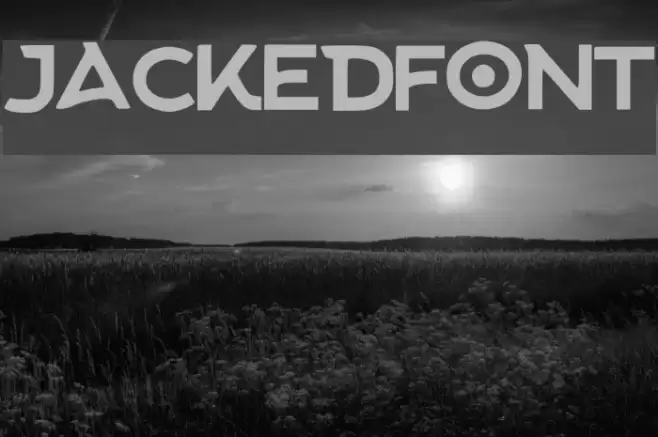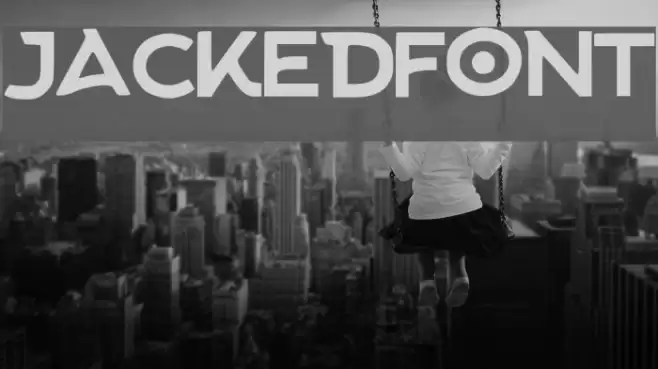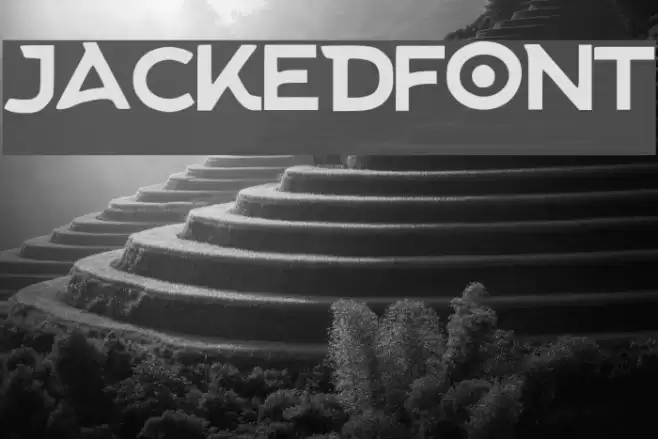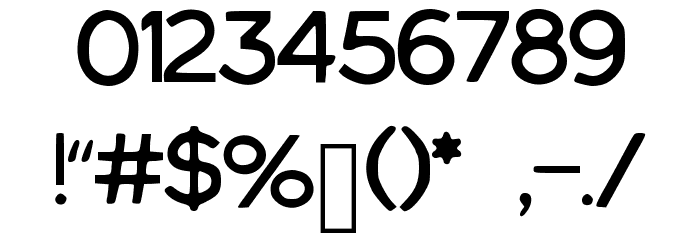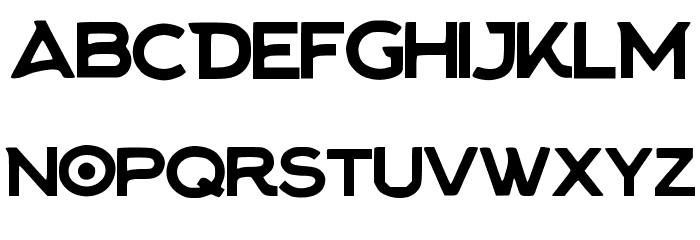
Jacked_Font Font
Jacked_Font Description
This font features a bold and geometric design with a modern flair. The characters are constructed with thick, uniform strokes, giving them a strong and impactful presence. The uppercase letters exhibit a consistent height and width, while the lowercase letters maintain a similar style, ensuring readability and cohesion. The numerals are clear and distinct, matching the overall boldness of the font. Special characters are designed with the same attention to detail, making them suitable for various applications. The font's clean lines and structured form make it ideal for projects that require a contemporary and assertive look.
A bold, geometric font with a modern and impactful design from Uncategorized fonts.
- Proposed Projects: Ideal for branding, headlines, posters, and digital media that require a strong visual impact.